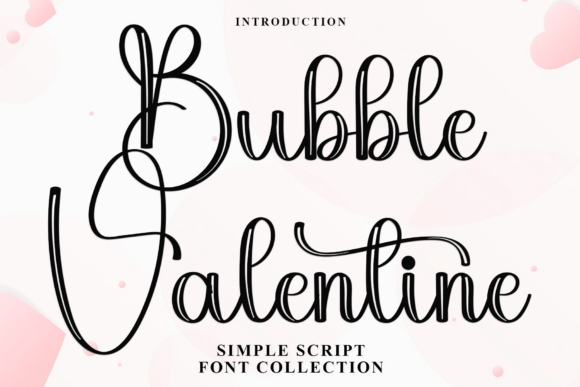
The Perfect Valentine: How Bubble Valentine Font Stole My Heart
I’ll never forget the time I was working on a Valentine’s Day project for a client, and I just couldn’t find the right font. I scrolled through page after page of Google Fonts, but nothing seemed quite right. That was until I stumbled upon Bubble Valentine Font. Its smooth, flowing curves and modern feel immediately caught my eye, and I knew I had found the perfect fit. In this article, I’ll share my experience with Bubble Valentine Font, and show you how to make the most of this beautiful font in your own designs.
My Honest Review of Bubble Valentine Font
- ✨ Smooth, flowing curves that give it a natural and playful feel
- ✅ Perfect for a variety of design projects, from invitations to logos and quotes
- 💫 Modern feel that adds a touch of sophistication to any design
- 🎉 Fun and creative vibe that’s sure to make your designs stand out
While I absolutely love Bubble Valentine Font, there are a few things to keep in mind. For example, ⚠️ some users have reported issues with kerning, so be sure to adjust the spacing between letters to get the best results. Additionally, 🤔 the font may not be suitable for very small text sizes, as some of the details may get lost.
- Experiment with OpenType features like ligatures and stylistic alternates to add some extra flair to your design
- Explore the glyphs panel to access special characters and ligatures
The Story Behind Bubble Valentine Font
Bubble Valentine Font was designed with love and care by a talented font designer who wanted to create a font that would bring a touch of warmth and personality to designs. The font’s smooth curves and modern feel make it perfect for a variety of projects, from romantic invitations to fun and playful designs.
Q: Is Bubble Valentine Font suitable for body text?
A: While Bubble Valentine Font is beautiful, it’s best suited for display text or headings. For body text, you may want to choose a font with better legibility.